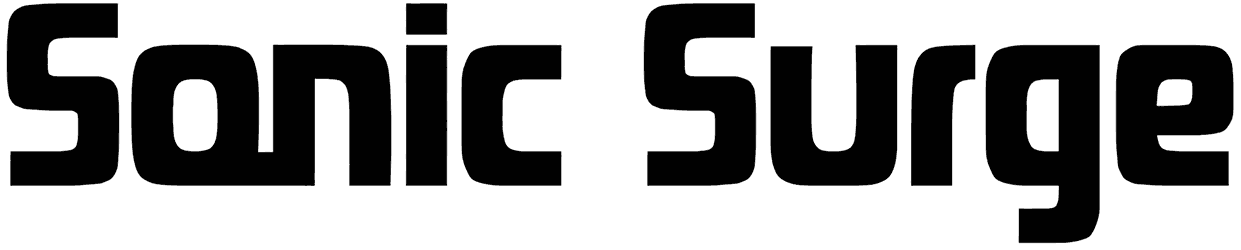
Sonic Surge Font
Did anyone say sci-fi fonts can’t be with ligatures? Then let’s show them Sonic Surge and prove them wrong right to their face… a tech font with such an obvious futuristic theme and of course ligatures!! That’s just perfect!
Let’s just hope you have a gaming logo or some technology project to design already, or at least you get one pretty soon, because having this awesome font at hand and not having anywhere to use it is not fun at all.